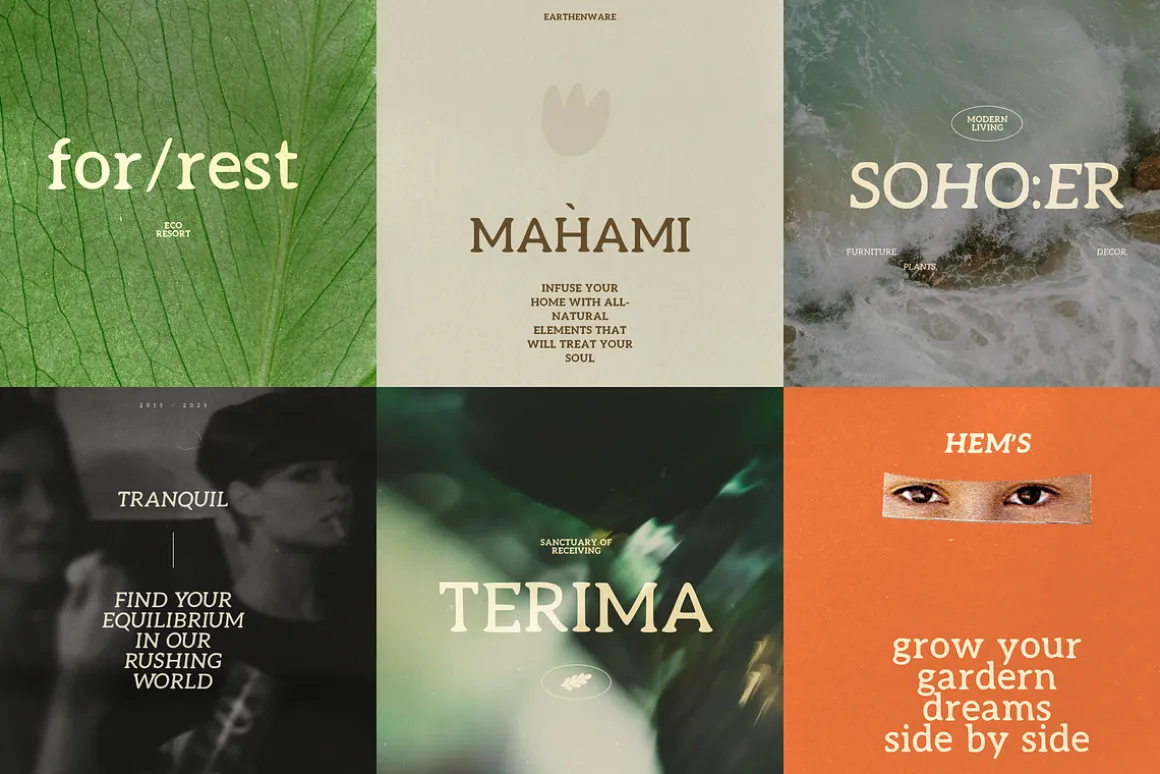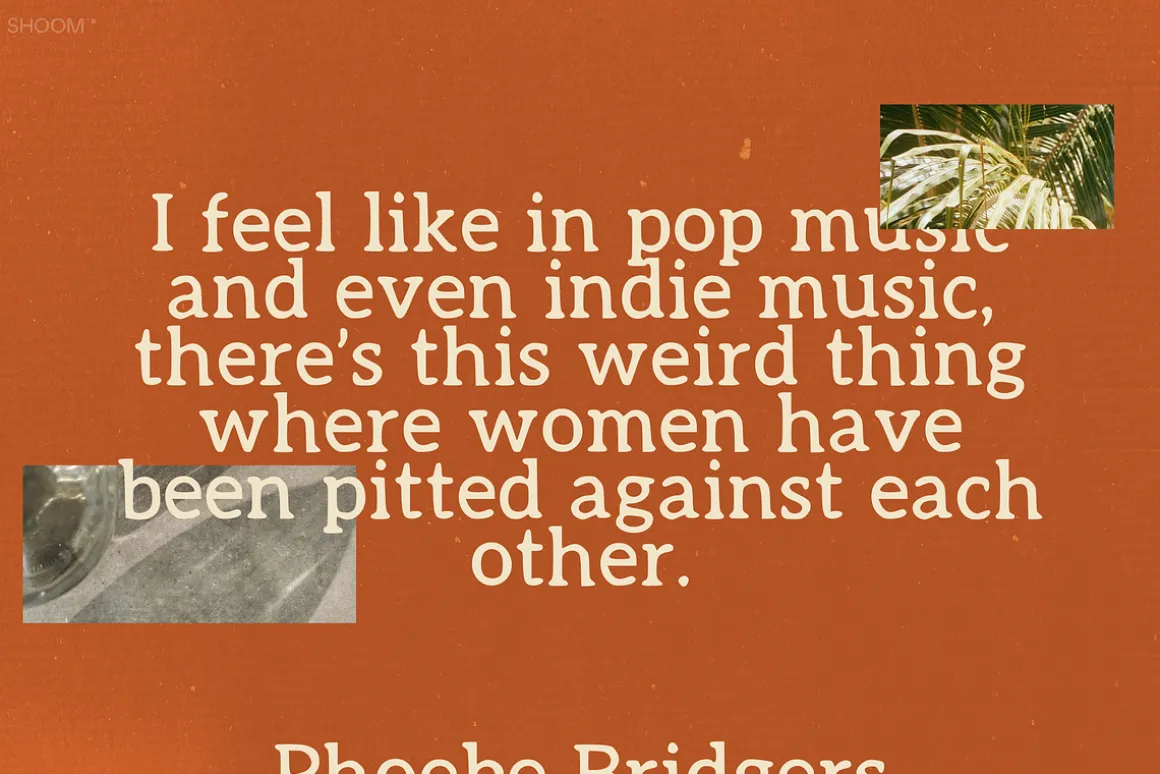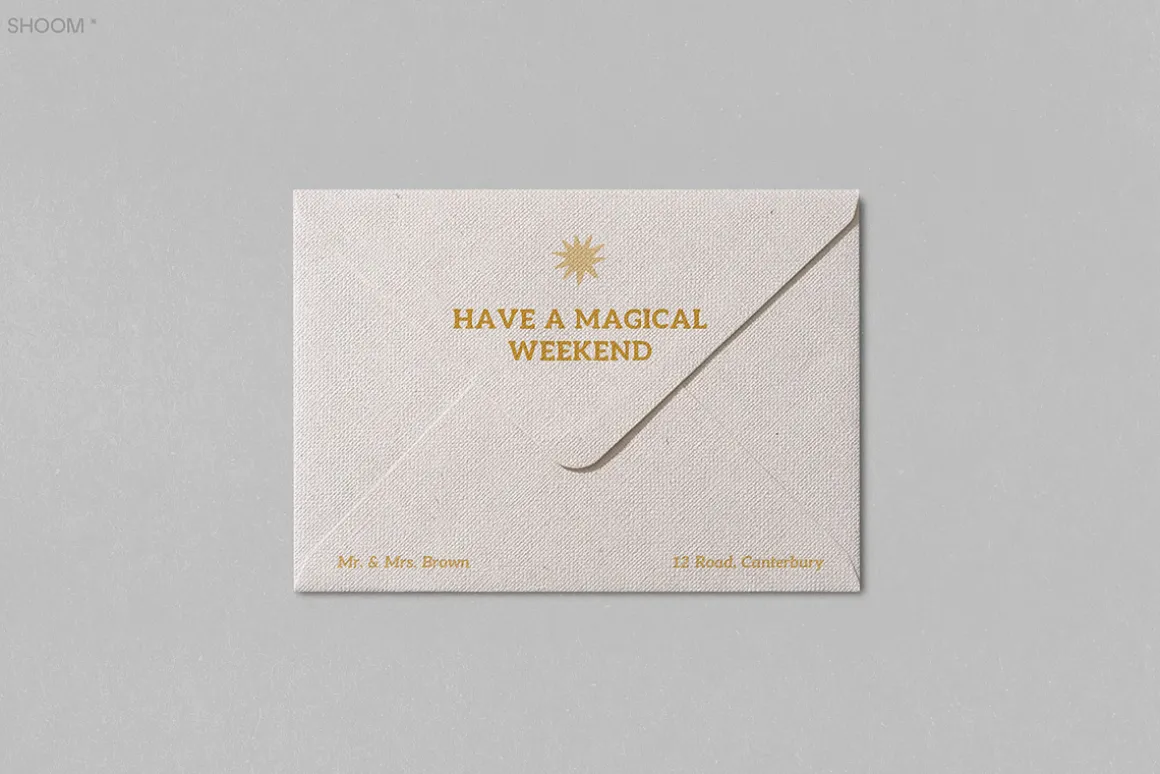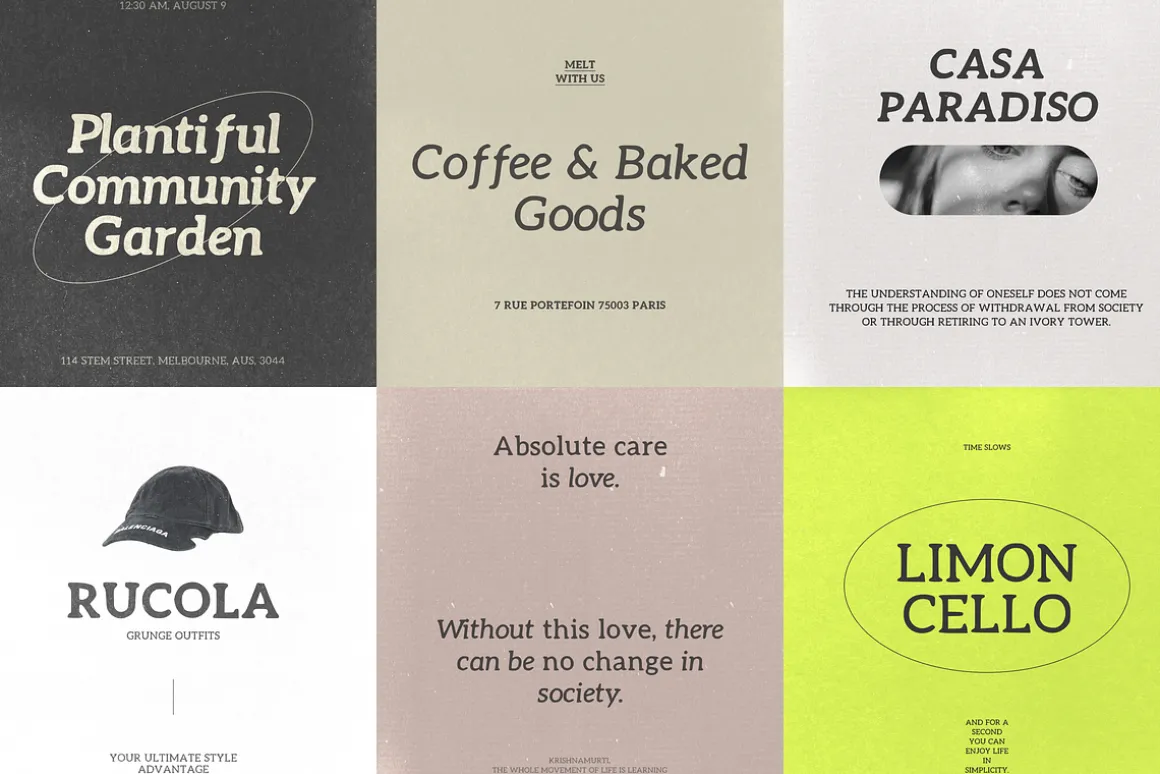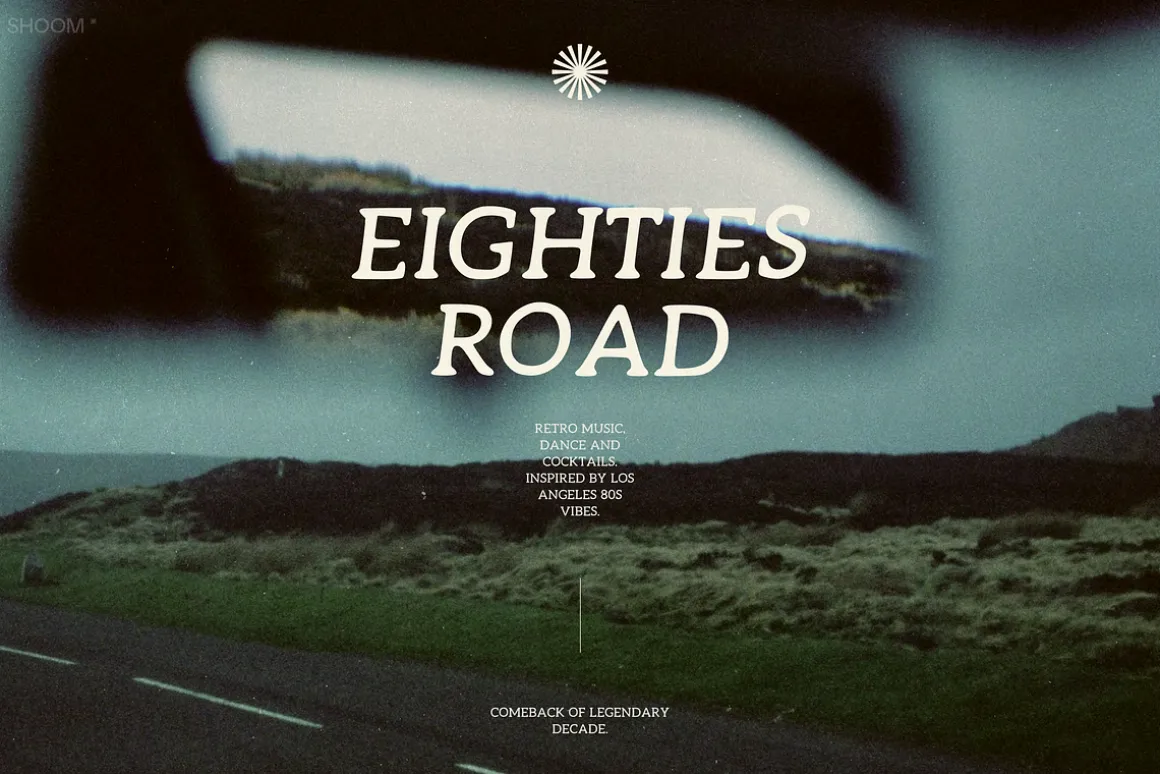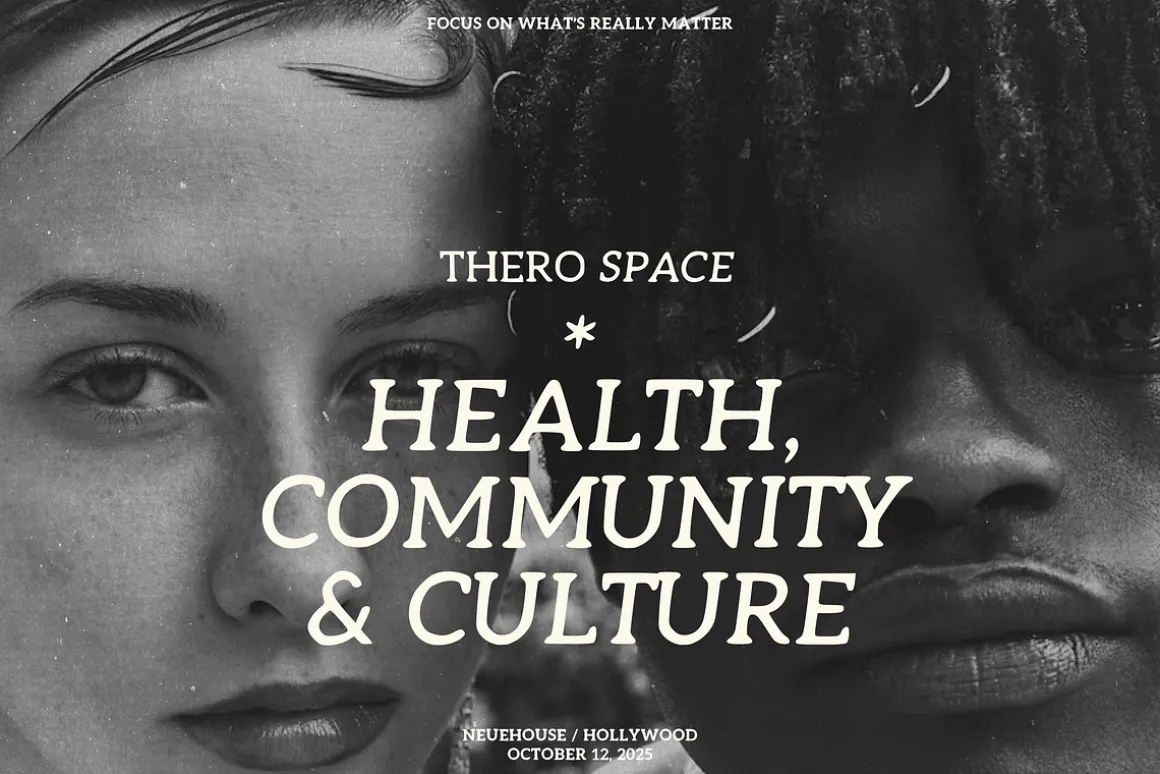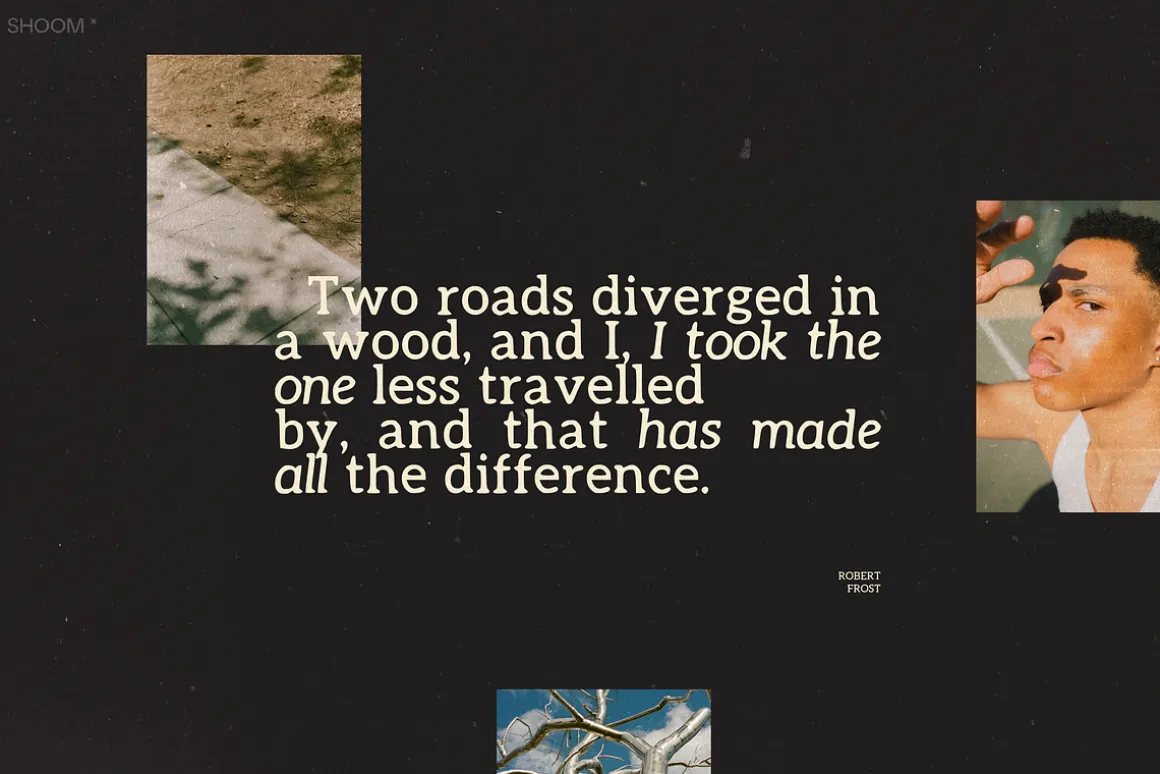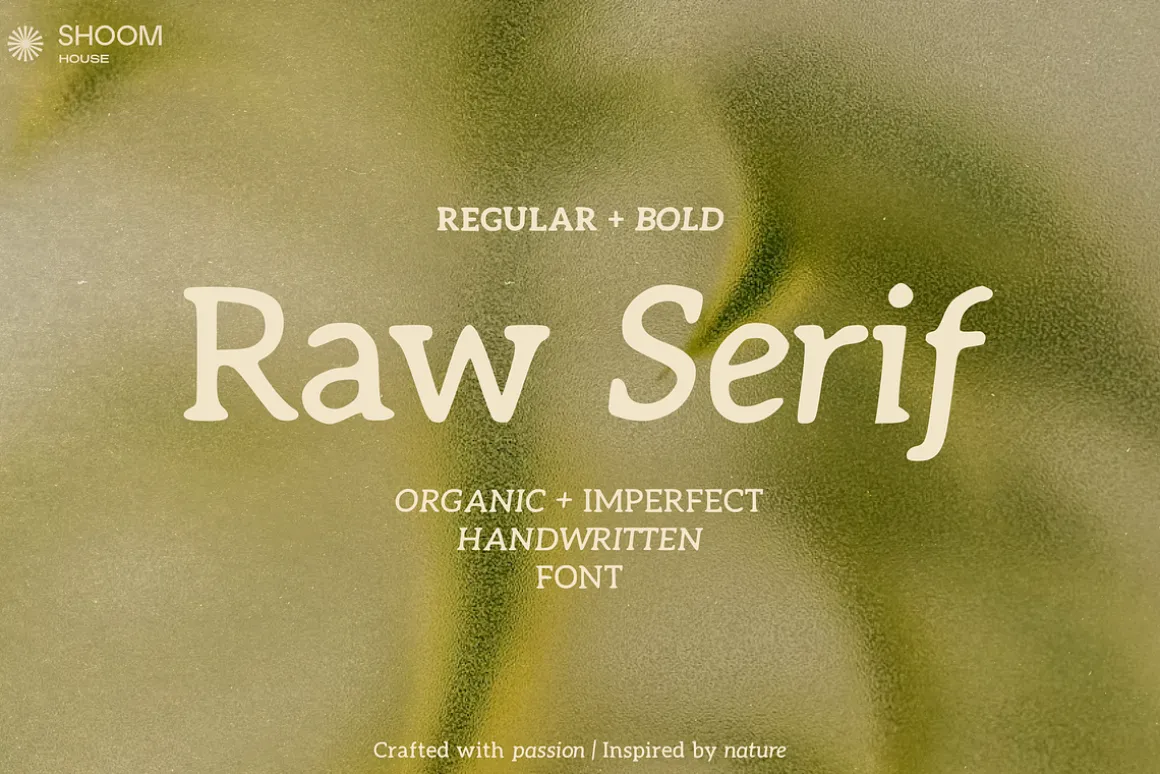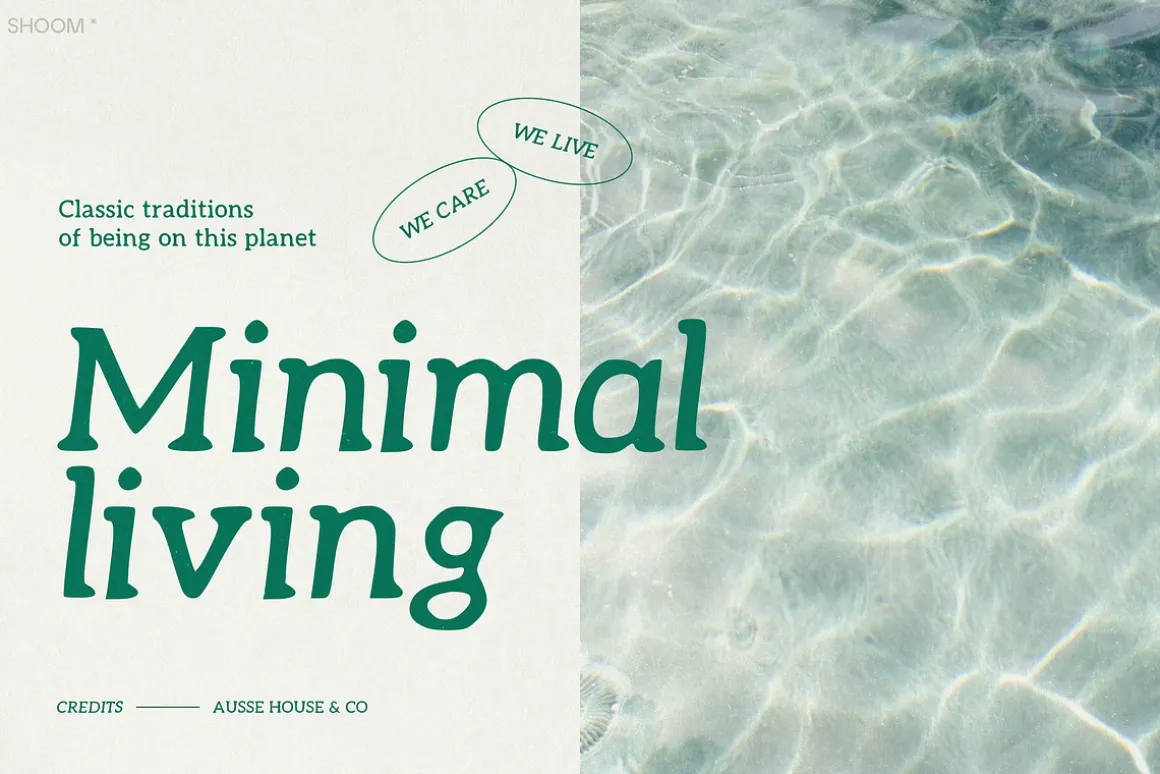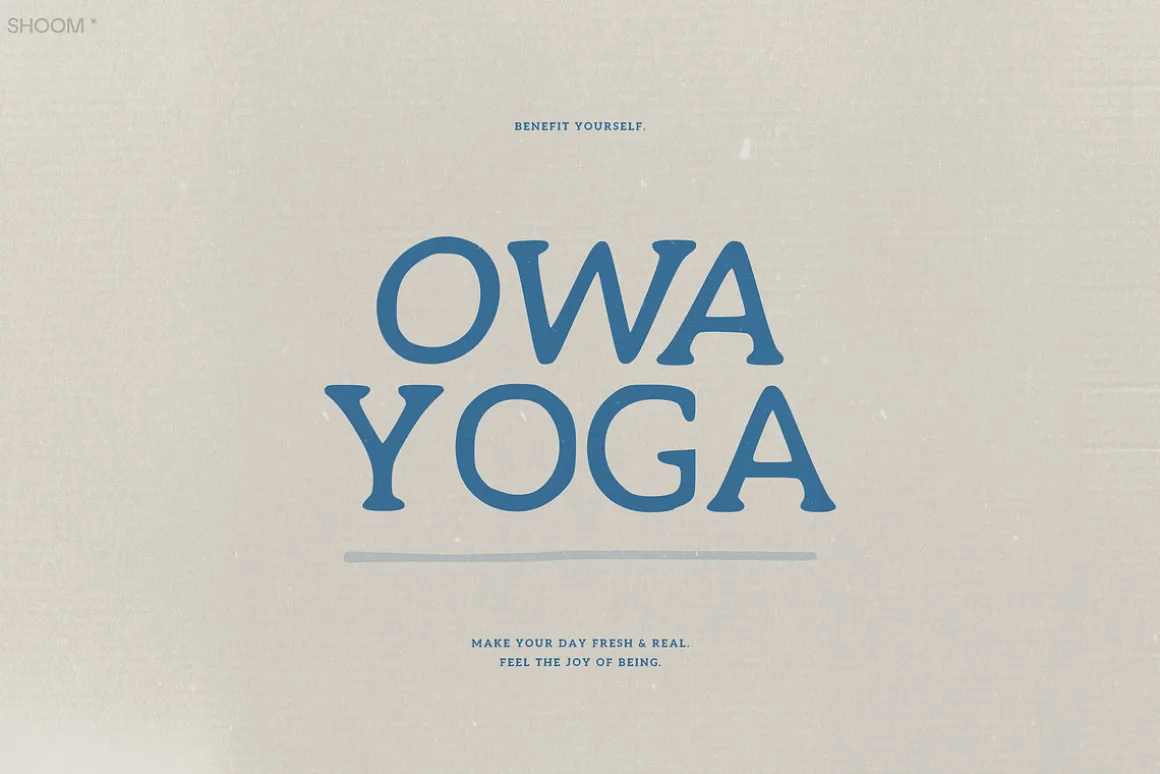
✽ Meet a hand crafted typeface that blends rugged charm with timeless character.
Its slightly vintage feel, organic lines, and subtle imperfections give every letter a warm, crafted touch. Bold yet approachable, Raw Serif is perfect for branding, posters, packaging, or any project that calls for an authentic, handmade look both with a nod to the past and modern look.
- Family includes: Regular, Italic, Bold and Bold Italic fonts
- Uppercase & lowercase English alphabet
- Numbers & punctuation symbols